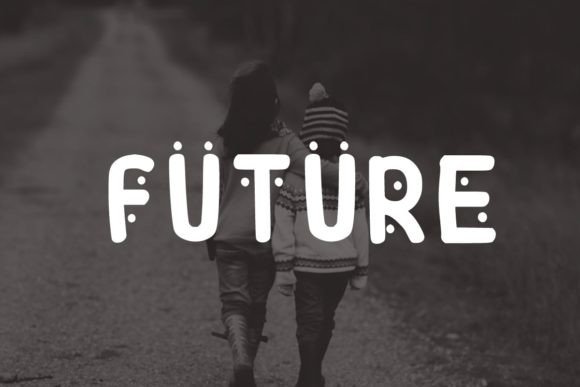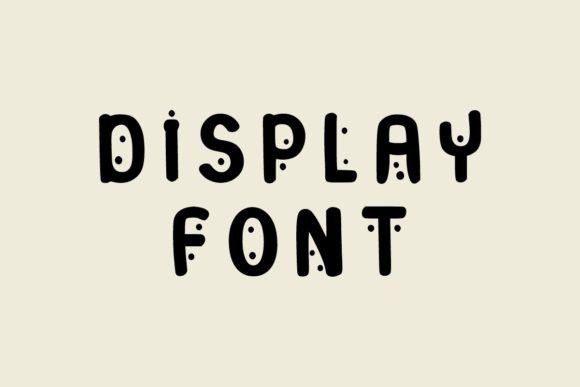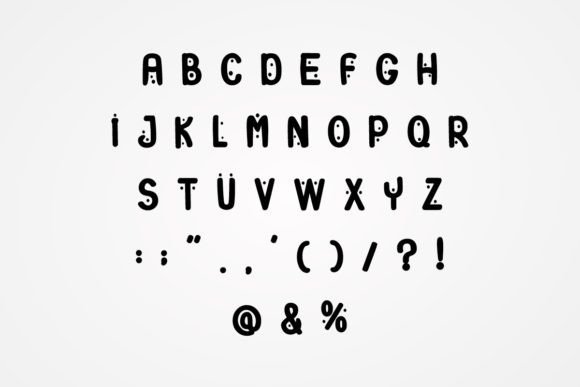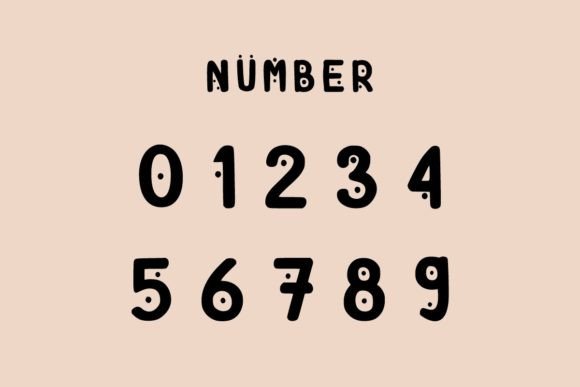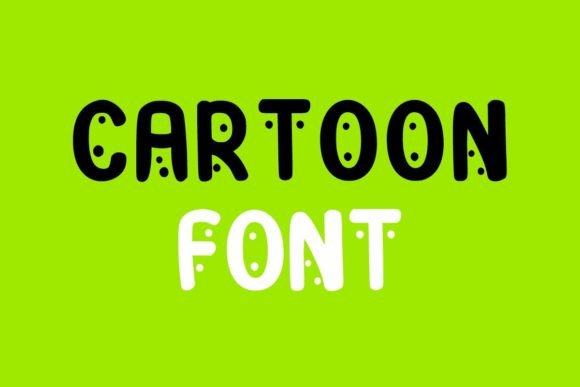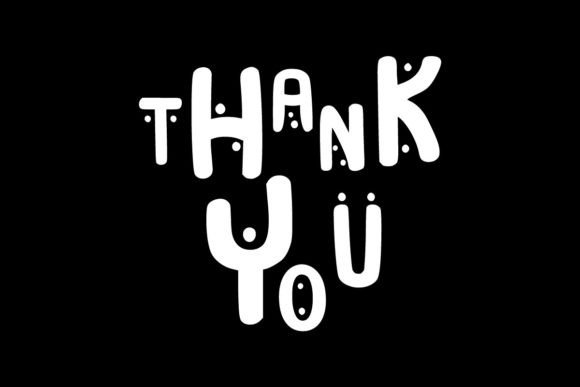
Introducing Best Friend Font: The Ultimate Display Font for Friendly Designs
Are you looking for a font that exudes warmth, approachability, and friendliness? Look no further than Best Friend Font, a bold and easy-to-read display font designed to help you create stunning visuals that convey impeccable friendliness. In this article, we’ll dive into the features and benefits of Best Friend Font, and explore the various ways you can use it to elevate your designs.
What is Best Friend Font?
Best Friend Font is a carefully crafted display font that is perfect for designers, crafters, and anyone looking to add a personal touch to their digital and print projects. Its bold and clear design makes it easy to read, even at smaller sizes, ensuring that your message is conveyed with clarity and style.
Key Features of Best Friend Font
- Bold and Easy-to-Read: Best Friend Font is designed to be attention-grabbing without being overwhelming. Its bold design ensures that your text stands out, while its clear and simple letterforms make it easy to read.
- Impeccable Friendliness: The font’s warm and approachable design conveys a sense of friendliness, making it perfect for projects where you want to create a personal connection with your audience.
- Versatile: Best Friend Font is suitable for a wide range of projects, from crafts and digital design to presentations, greeting cards, text effects, logos, and more.
Uses for Best Friend Font
Best Friend Font is an incredibly versatile font that can be used in a variety of projects. Here are some ideas to get you started:
- Crafts: Use Best Friend Font to add a personal touch to your craft projects, such as scrapbooking, card making, and DIY gifts.
- Digital Design: Add a friendly touch to your digital designs, including social media graphics, blog posts, and website headers.
- Presentations: Make your presentations more engaging with Best Friend Font, perfect for titles, headings, and emphasis text.
- Greeting Cards: Create personalized greeting cards for special occasions, such as birthdays, holidays, and weddings.
- Text Effects: Use Best Friend Font to create stunning text effects, such as 3D text, drop shadows, and more.
- Logos: Create a friendly and approachable logo for your business or brand with Best Friend Font.
- Cover Books: Use Best Friend Font to create eye-catching book covers that grab attention.
Why Choose Best Friend Font?
With so many fonts available, why choose Best Friend Font? Here are just a few reasons:
- Unique Design: Best Friend Font has a unique design that sets it apart from other fonts. Its bold and friendly design ensures that your text stands out.
- Ease of Use: Best Friend Font is easy to use, even for those with limited design experience. Its clear and simple letterforms make it easy to read and work with.
- Time-Saving: With Best Friend Font, you can create stunning designs in no time. Its versatility and ease of use make it a great time-saving solution for designers and crafters.